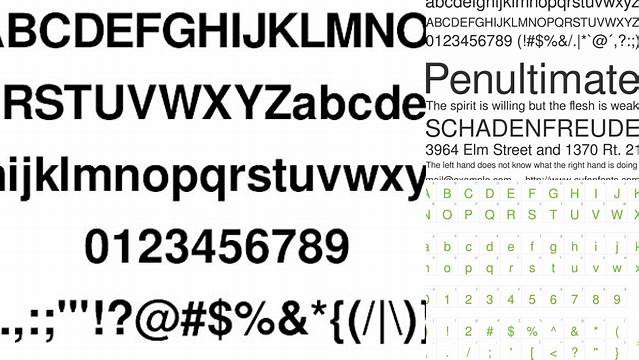
Hey there, font enthusiasts! Ever found yourself on the hunt for a versatile, open-source font that just fits? Well, look no further because we're diving headfirst into the world of the FreeSans font family. This bad boy is a true workhorse, loved by designers and developers alike for its readability and wide range of characters. Whether you're crafting a sleek website, whipping up a professional presentation, or just doodling in your notebook, FreeSans has got your back. In this comprehensive guide, we'll explore everything you need to know about FreeSans font family download, from its origins and characteristics to how to snag it for yourself and start using it in your projects. Get ready to say goodbye to font frustrations and hello to the clean, crisp aesthetic of FreeSans!
What is the FreeSans Font Family?
So, what exactly is FreeSans? In a nutshell, it's a sans-serif font family designed by the legendary Steve Matteson. It's part of the FreeFont project, a noble endeavor to create a comprehensive set of fonts that are free to use, modify, and distribute. That's right, folks—free as in beer! (and freedom). This is a huge win for anyone who's ever been stung by licensing fees or limited by font availability. FreeSans is derived from the Bitstream Vera fonts, but with some added flair and expanded character coverage. The FreeSans font family's got a simple, elegant design, which makes it super easy on the eyes, especially in long blocks of text. Think of it as the cool, reliable friend of the font world – always there, always dependable, and always looking good. Plus, the open-source nature of FreeSans means it's constantly being improved and updated by a community of dedicated users and developers. You know what that means, right? No outdated fonts here! You can download FreeSans font family and integrate it into your projects.
One of the coolest things about FreeSans is its broad character support. It's got everything from basic Latin and Cyrillic characters to more exotic glyphs. This makes it a fantastic choice for multilingual projects or anything that requires a wide range of symbols. Unlike some fonts that leave you scrambling for special characters, FreeSans has you covered. This extensive character set is a major reason why the FreeSans font family is a favorite among those who work in diverse fields or need to accommodate a wide audience. Whether you're working on a global website, creating documents in multiple languages, or simply want to spice up your typography with a few extra symbols, FreeSans makes it easy. Its inclusive nature ensures that your content is accessible to everyone, regardless of their language or background. The fact that it's free and open-source is just the icing on the cake. It's the kind of font family that makes you feel like you're part of something bigger, a community-driven effort to make great design accessible to all.
Why Choose FreeSans?
Okay, so why should you ditch your current font and jump on the FreeSans bandwagon? Well, let's break it down. First off, as we've mentioned, it's free!. And not just in terms of cost. It's free to use for any purpose, whether it's personal or commercial. This removes a huge barrier to entry for designers and creatives on a budget. Secondly, its versatility is off the charts. The FreeSans font family download and its clean, neutral design means that it works well in a ton of different contexts. Websites, documents, presentations, and even printed materials – FreeSans adapts beautifully to each of them. It's a true chameleon of the font world, blending in seamlessly wherever you need it. Thirdly, its readability is top-notch. Say goodbye to squinting and eye strain! The clear and simple design of FreeSans makes it super easy to read, even at smaller sizes. This is particularly important for websites and documents where users are spending a lot of time consuming text. When you choose this font you get the best free sans-serif font.
Finally, it's a great alternative to some of the more common, and sometimes restrictive, fonts out there. If you're looking for a fresh look without sacrificing readability or versatility, FreeSans is an excellent choice. It offers a clean, modern aesthetic that can give your designs a professional edge. From a FreeSans font family download, you will see it is an excellent option for anyone seeking a reliable and versatile font, so you can go ahead and start using it for your projects.